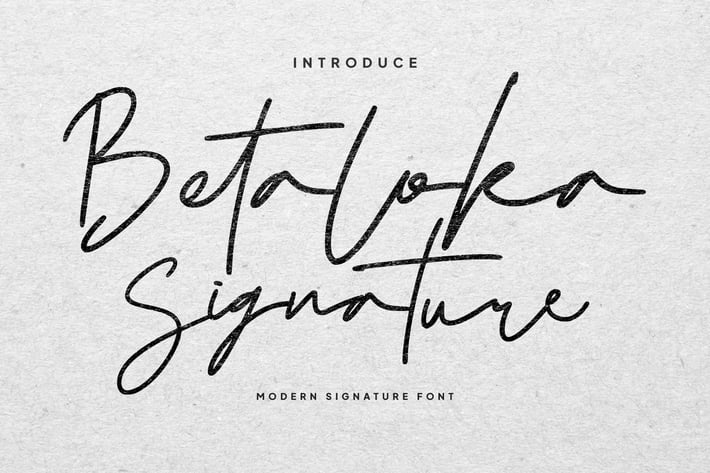
Betaloka Signature - Modern Signature Font
Betaloka Signature - Modern Signature Font is a script font ideal for designers who want to create elegant, personal, and easy-to-read designs. This font is perfect for a variety of design needs, from logos and branding to posters and wedding invitations.